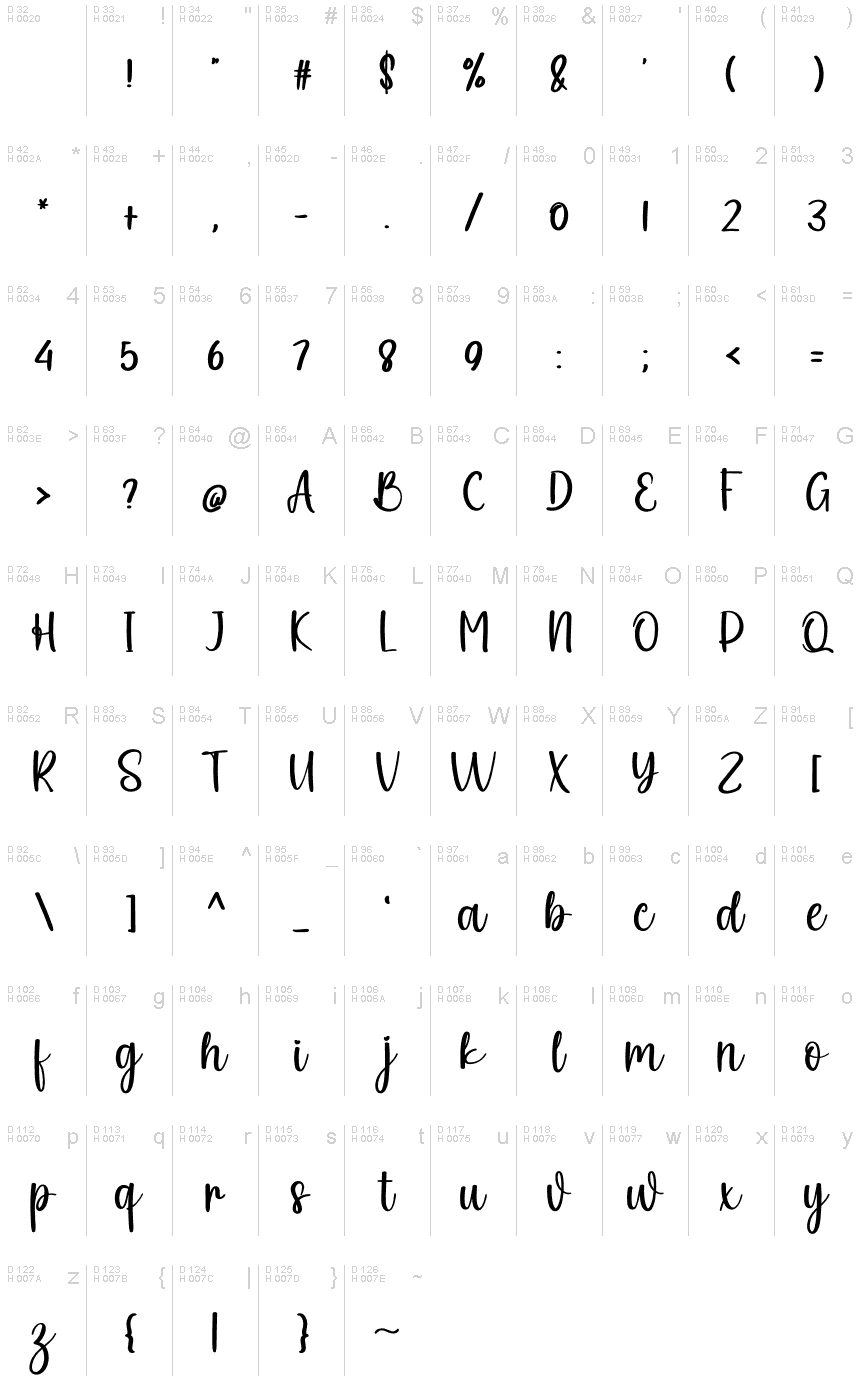
Bestie
Bestie, a lovely handwritten font designed by Gunawan, adds a touch of warmth and elegance to any project.
Its graceful curves and gentle strokes make it perfect for wedding invitations, greeting cards, and love letters. The semi-bold weight gives it a modern yet playful feel, making it suitable for branding materials, social media graphics, and blog headers. With its versatile nature, Bestie is also well-suited for children's book covers, feminine fashion magazines, and artful packaging designs.
Let Bestie bring charm and sophistication to your creative endeavors.